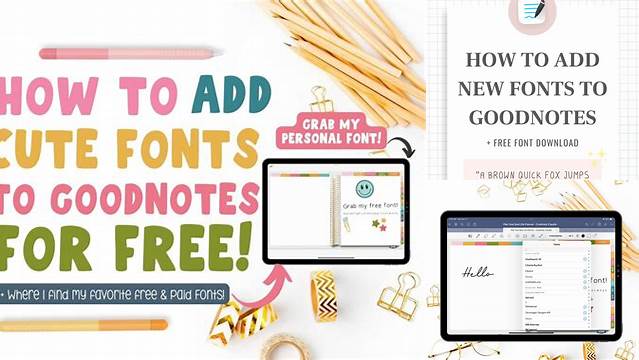
Hey everyone! If you're a GoodNotes enthusiast like me, you probably love jazzing up your notes with some cool fonts. But let's be real, sometimes finding those perfect fonts can be a total pain. Fear not, my friends! Because today, we're diving deep into the world of free font apps for GoodNotes. I'm going to share some awesome apps that'll have your digital notebooks looking snazzy in no time. Get ready to level up your note-taking game with some seriously stylish fonts!
We're also going to look at how these apps cater to different creative needs – whether you're a student, a professional, or just someone who loves to doodle and design. Some apps specialize in handwriting-style fonts, perfect for mimicking that authentic, handwritten feel, while others offer a broader range, including display fonts for headlines and body fonts for detailed notes. The key is to find an app that aligns with your personal style and the specific purposes for which you use GoodNotes. I’ll break down what makes each app stand out, including their unique features, font libraries, and how they integrate with GoodNotes. You'll get the lowdown on how to download and install fonts, how to manage them effectively, and some tips for using them creatively within your GoodNotes notebooks. We'll also cover some common challenges you might encounter, like font compatibility issues or the best ways to organize your fonts to stay organized. So, buckle up! We're about to embark on a font-filled journey that will transform how you use GoodNotes. From simple, clean fonts for academic notes to fun, quirky fonts for creative projects, the options are endless. The goal is to empower you with the knowledge and tools to express your creativity and make your digital notes truly your own. By the end of this guide, you'll have a solid understanding of the best free font apps available and how to use them to their full potential. Trust me, once you start using these fonts, you'll wonder how you ever lived without them.
Okay, let's dive into some apps that really deliver on the font variety front. The best font apps understand that we all have different tastes and needs. Some of these apps pride themselves on offering a huge variety of fonts, from classic and timeless styles to trendy and modern options. These apps act as comprehensive font libraries, giving you the freedom to choose fonts that perfectly match your notes, projects, or personal brand.
One of the essential things to look for is the range of font styles. Do they offer a wide array of serifs and sans-serifs? Are there handwriting fonts that mimic the look of actual handwriting? What about display fonts for titles and headings, and body fonts for the main content? The best apps cater to all these needs, offering something for everyone. Beyond style, font apps should also offer customization options. Some apps allow you to adjust the size, spacing, and even the color of your fonts within GoodNotes. This level of customization can significantly enhance the visual appeal and readability of your notes. Also, consider whether the app offers regular updates. New fonts, features, and bug fixes are crucial for keeping your app fresh and ensuring compatibility with the latest versions of GoodNotes and your device. When exploring these apps, pay attention to the user interface. Is it easy to browse the font library? Can you preview fonts before downloading them? An intuitive and user-friendly interface is crucial for a smooth and enjoyable experience. These apps can become your go-to resources for enhancing your digital notes. From clean, minimalist fonts ideal for professional settings to playful, decorative fonts perfect for creative projects, the possibilities are truly endless. The best apps also often provide tutorials or guides on how to install and use the fonts within GoodNotes, which can be incredibly helpful for beginners. Ultimately, the goal is to find an app that meets your specific needs and gives you the creative freedom to express yourself.
If you're aiming for that touch of sophistication in your GoodNotes, then you're in the right place. Many font apps specialize in providing elegant and stylish fonts that can instantly elevate the look of your digital notes. Think graceful scripts, refined serifs, and sleek sans-serifs – all designed to add a touch of class and professionalism to your work. These apps often have a curated selection of fonts, focusing on quality and design rather than quantity.
These apps tend to feature fonts that are ideal for creating a sense of sophistication. Consider scripts for personal notes and headings, serifs for a classic, timeless feel, and clean sans-serifs for a modern, minimalist look. The fonts are designed to create visually appealing and highly readable notes. Ease of use and seamless integration with GoodNotes are key. Many of these apps are designed to make it simple to preview, download, and install fonts, so you can start using them quickly. Another important aspect is the ability to manage your fonts effectively. The best apps allow you to organize your fonts, so you can easily find the ones you need when you need them. This can include features such as font categorization, favorites lists, and search functions. Some apps also provide tutorials or guides to help you get the most out of their fonts. They might offer tips on how to pair fonts, how to use them for different types of notes, and how to customize them within GoodNotes. Using these apps can help you create notes that look professionally designed and add a touch of elegance to your digital note-taking.
H3: Apps Offering Handwritten and Script Fonts
Love the charm of handwritten notes? You're in luck! There are many apps specifically designed for handwriting and script fonts, which will transform your GoodNotes into something more personal and engaging. These apps offer fonts that realistically mimic handwriting, creating a truly unique and personalized feel. These fonts are perfect for adding a touch of authenticity to your notes and making them feel less digital and more like a personal journal or sketch. The key is to find apps that offer a variety of styles that appeal to your style. Do you prefer a casual, flowing script or something more formal and elegant? Consider the legibility of the fonts as well. They need to be both stylish and easy to read. The best apps ensure that their handwriting fonts are designed to maintain readability, even at smaller sizes. Good integration with GoodNotes is essential. You'll want apps that make it easy to install and use these fonts in your digital notebooks. Look for apps that offer clear instructions and a user-friendly interface.
Another point to consider is the customization options. Some apps allow you to adjust the size, spacing, and even the color of the fonts, which can help you tailor them to your specific needs. Many apps also provide tutorials and guides on how to use their handwriting and script fonts effectively. They might offer tips on font pairing, how to use different fonts for different types of notes, and how to create a cohesive look. Using handwriting and script fonts can add a personal and unique touch to your digital notes. These fonts are ideal for adding personality to your notes, whether you are creating personal journals, creative projects, or even professional presentations.
H3: Final Thoughts and Next Steps for Your Note-Taking Journey
I hope this guide has given you the tools and inspiration to transform your GoodNotes experience with some fantastic free font apps. Remember, the best font is the one that makes your notes look and feel just the way you want them to. So, go forth, download some fonts, and start creating! Take the time to explore different apps and fonts, and don't be afraid to try new things. Keep exploring and experimenting, and never stop learning. Good luck, and happy note-taking, everyone! You're now ready to take your digital notes to the next level. Get creative, and most importantly, have fun with it!